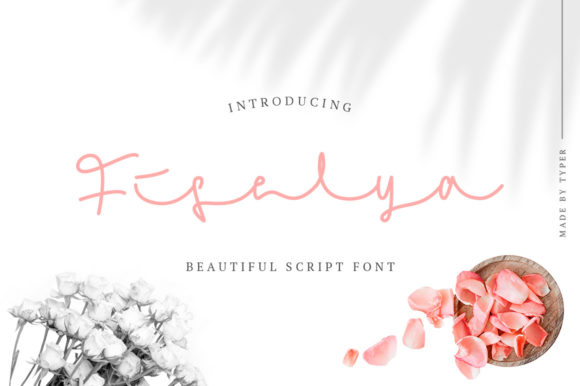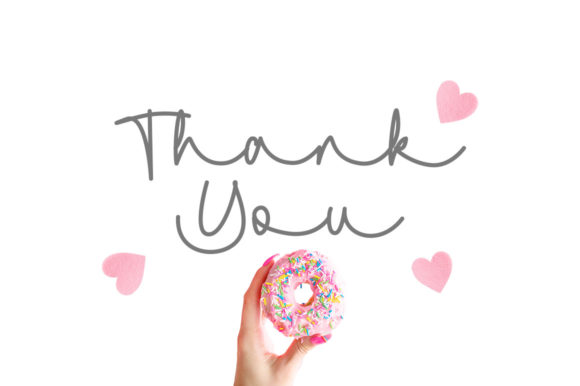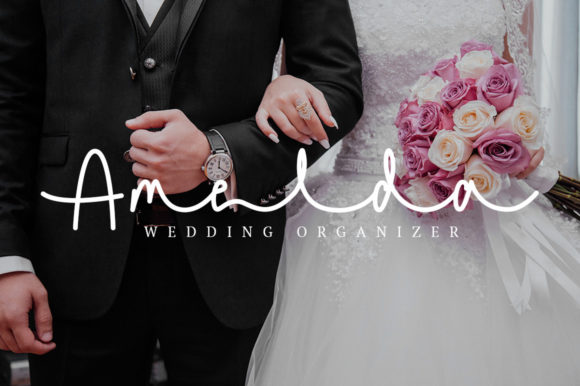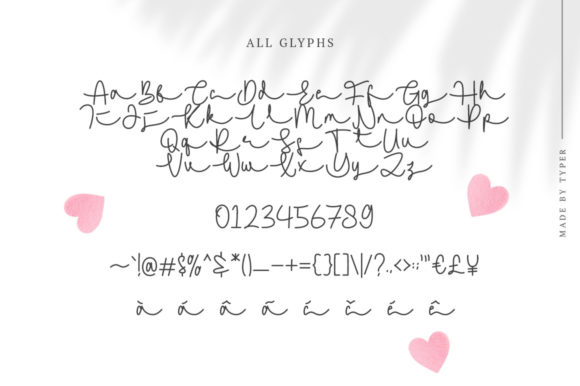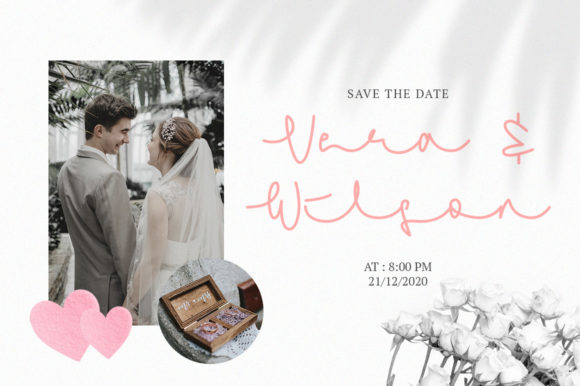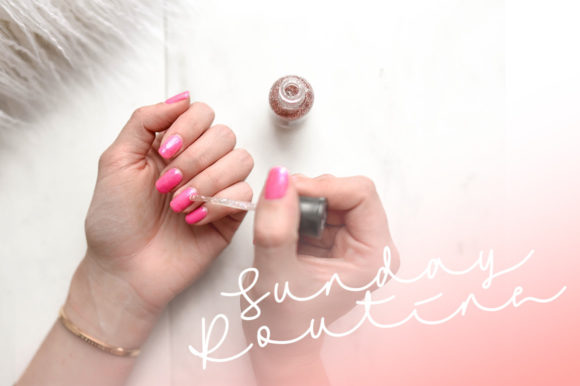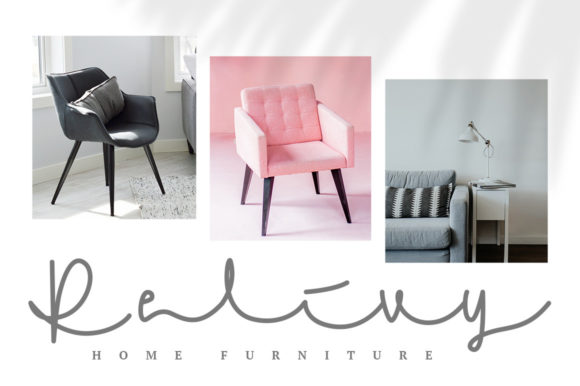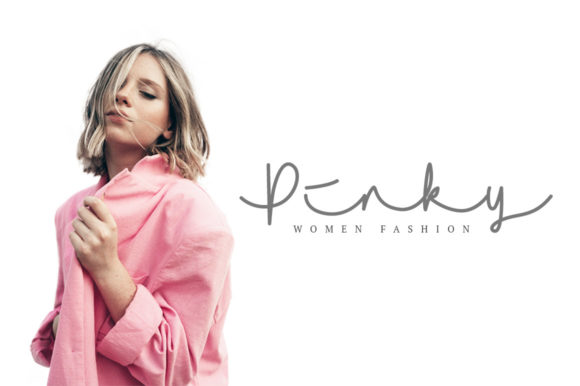
Fiselya Font
About Fiselya Font
Fiselya is a beautiful and fashionable handwritten font with a unique feel and a stunning impact. It will add a unique spark to any design project that you wish to create!